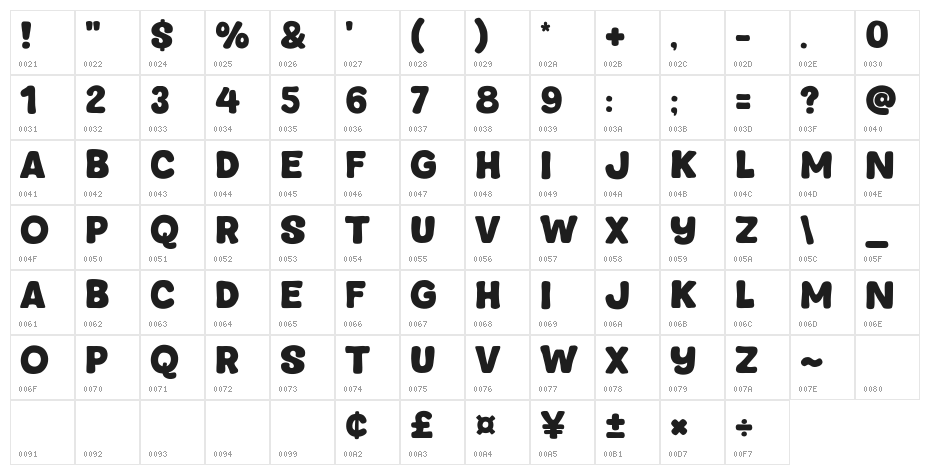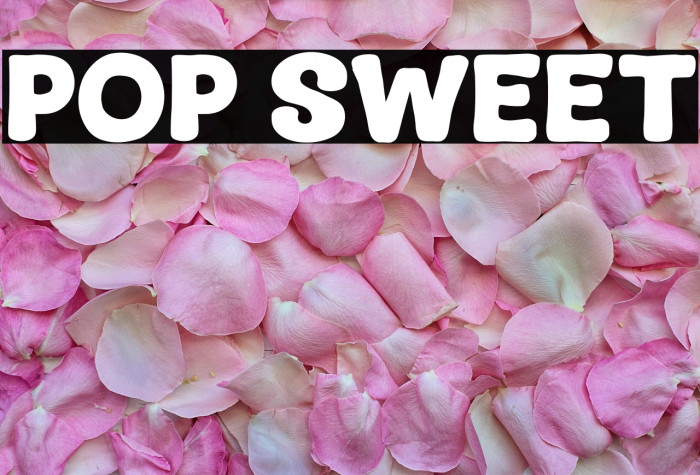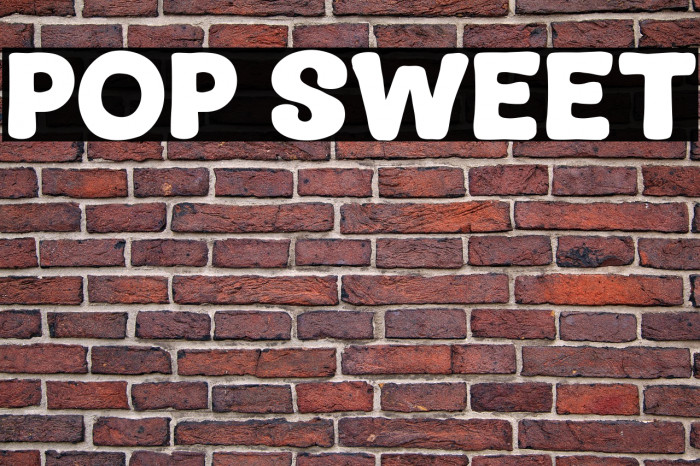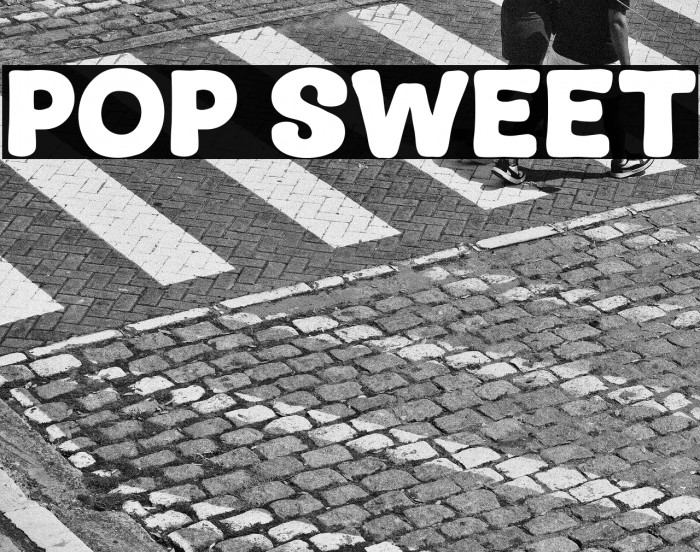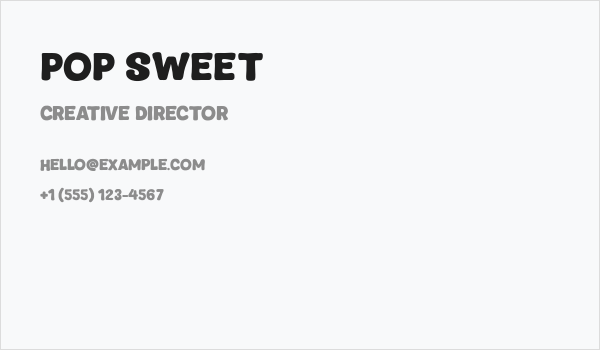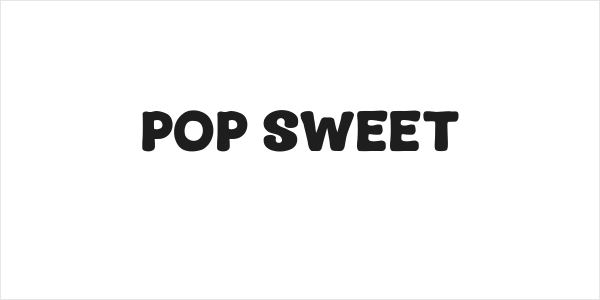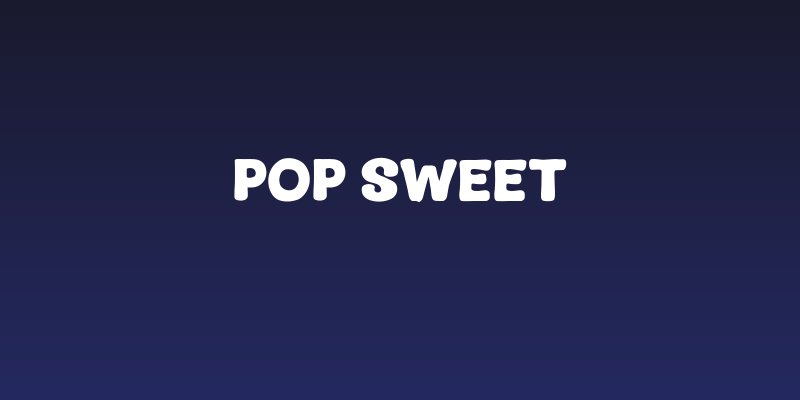
Pop Sweet Font
Pop Sweet Description
This playful and bold font features rounded, bubbly characters that exude a sense of fun and whimsy. The letters are thick and well-defined, with a consistent stroke width that gives them a solid and substantial appearance. The rounded edges and smooth curves contribute to a friendly and approachable aesthetic, making it ideal for projects that require a touch of lightheartedness. The font includes a full set of uppercase and lowercase letters, numerals, and a variety of special characters, ensuring versatility in its application. Its boldness makes it stand out, while the rounded forms keep it from feeling too harsh or aggressive.
| Overall Style | Playful |
| Proposed Projects | Ideal for children's books, playful branding, party invitations, and any project needing a fun, approachable vibe. |